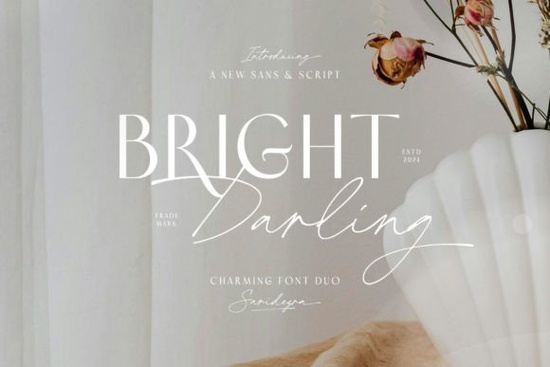
Looking for a font pairing that balances clean modern type with elegant hand-lettered style? The Bright Darling Duo Font gives you exactly that a refined sans-serif paired with a flowing script, both designed to work together seamlessly. Whether you're building a brand identity, designing wedding invitations, or creating products for your Etsy shop, this duo covers a lot of ground without needing to hunt for a matching pair yourself.
What Comes in the Bright Darling Duo Font Pack?
This download includes two complementary fonts: Bright Darling Serif and Bright Darling Script. The sans-serif has a modern, minimal feel with clean lines and balanced spacing. The script font brings graceful, hand-drawn character with smooth curves and natural flow.
Together, they create a visually harmonious pairing that works across a wide range of design projects. You don't have to spend time testing different fonts against each other these two were built to complement one another from the start.
Who Is This Font Pairing Good For?
Bright Darling works well for anyone who needs a mix of polish and personality in their typography. Here are some common uses:
- Wedding stationery designers use the script for names and the serif for event details
- Print-on-demand sellers create mug designs, tote bags, and t-shirts with layered text
- Small business owners build logos, business cards, and packaging with a consistent look
- Social media creators style quote graphics, Instagram posts, and Pinterest pins
- Crafters and hobbyists make SVG files, greeting cards, and wall art at home
If you regularly pair fonts for client work or your own shop, having a ready-made duo like this saves real time. You get two typefaces that already speak the same visual language.
How Does Bright Darling Compare to Other Font Duos?
There are plenty of font pairings available, but not all of them nail the balance between simplicity and elegance. Some lean too casual, while others feel stiff or overly formal. Bright Darling sits in a comfortable middle ground the sans-serif keeps things grounded while the script adds warmth and personality.
For comparison, Mango Dream Font is another popular sans-serif choice that leans more playful and relaxed. Bright Darling, on the other hand, feels slightly more refined and pairs better with formal or semi-formal design themes.
What Design Projects Work Best with This Duo?
Because of its balanced aesthetic, this font pair fits a surprising variety of projects:
- Logo design stack the script over the serif for a layered brand mark
- Blog headers and website banners mix the two fonts to create visual hierarchy
- Product packaging use the serif for ingredient lists and the script for product names
- Invitations and cards combine both for a classic yet fresh typographic layout
- Quote prints highlight key words in script while keeping supporting text in serif
The clean lines of the sans-serif make it highly readable at smaller sizes, which matters for body text on packaging or print products. The script holds up well at larger display sizes, so it's ideal for headlines and focal text.
Tips for Pairing These Fonts in Your Designs
Getting the most out of a font duo comes down to a few simple habits:
- Use contrast intentionally set the script at a noticeably larger or smaller size than the serif to create visual separation
- Watch your spacing adjust tracking and leading so the two fonts don't crowd each other
- Limit your color palette let the typography do the talking by keeping backgrounds and colors simple
- Don't overuse the script reserve it for key phrases or names so it stays impactful
These small adjustments make a big difference in how professional your final design looks.